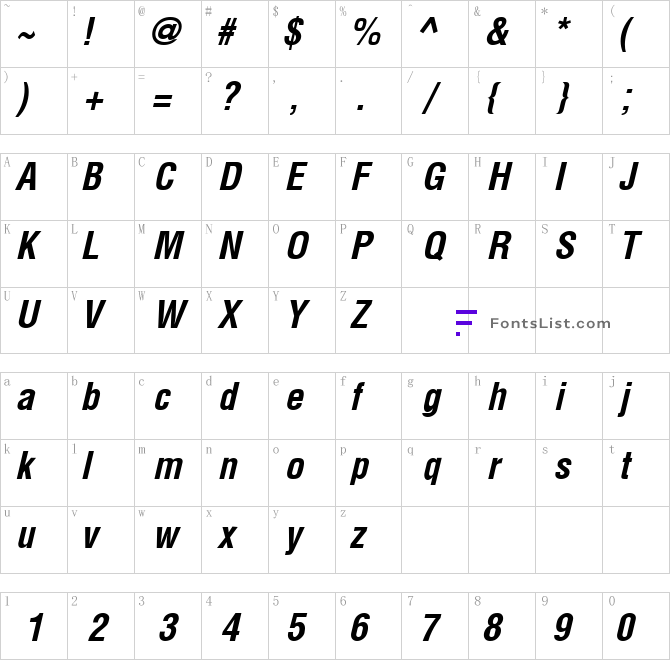
- Font Name:Arena Condensed
Arena-Condensed-Bold-Italic-copy-2-.ttf is a very beautiful artistic font, Arena-Condensed-Bold-Italic-copy-2-.ttf is widely used in the design and printing of various books and pictures,Arena-Condensed-Bold-Italic-copy-2-.ttf has a strong visual impact,Arena-Condensed-Bold-Italic-copy-2-.ttf is a commonly used font in newspapers, magazines and books, and is used in posters, e-commerce Poster design, store design, logo design, font design and other fields.Arena-Condensed-Bold-Italic-copy-2-.